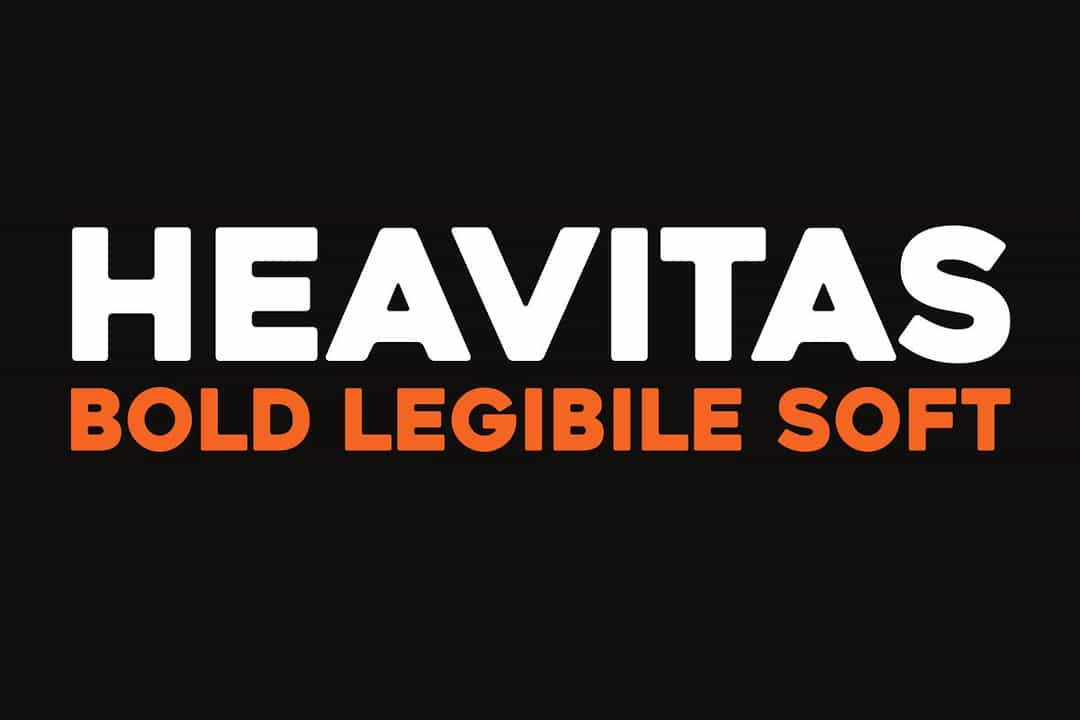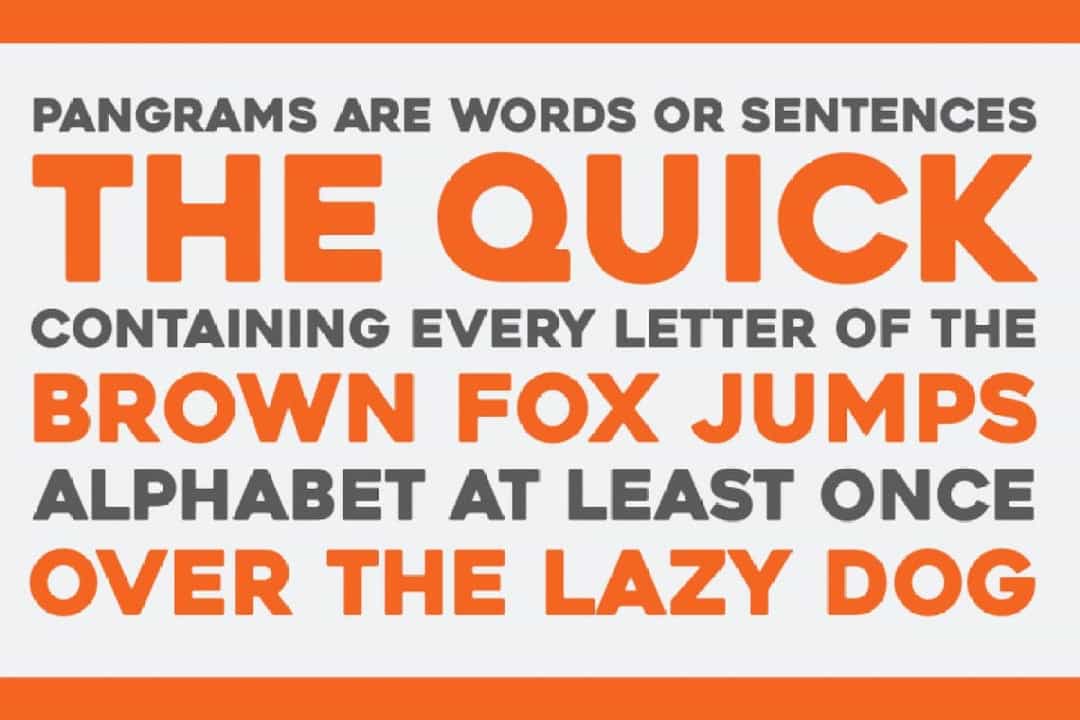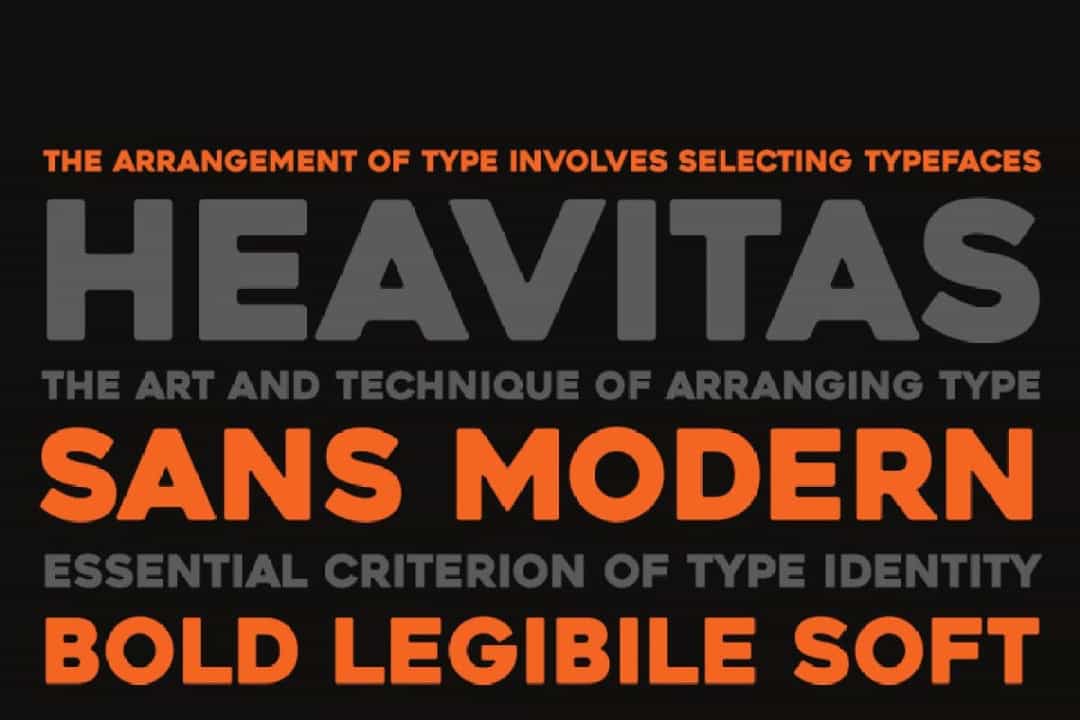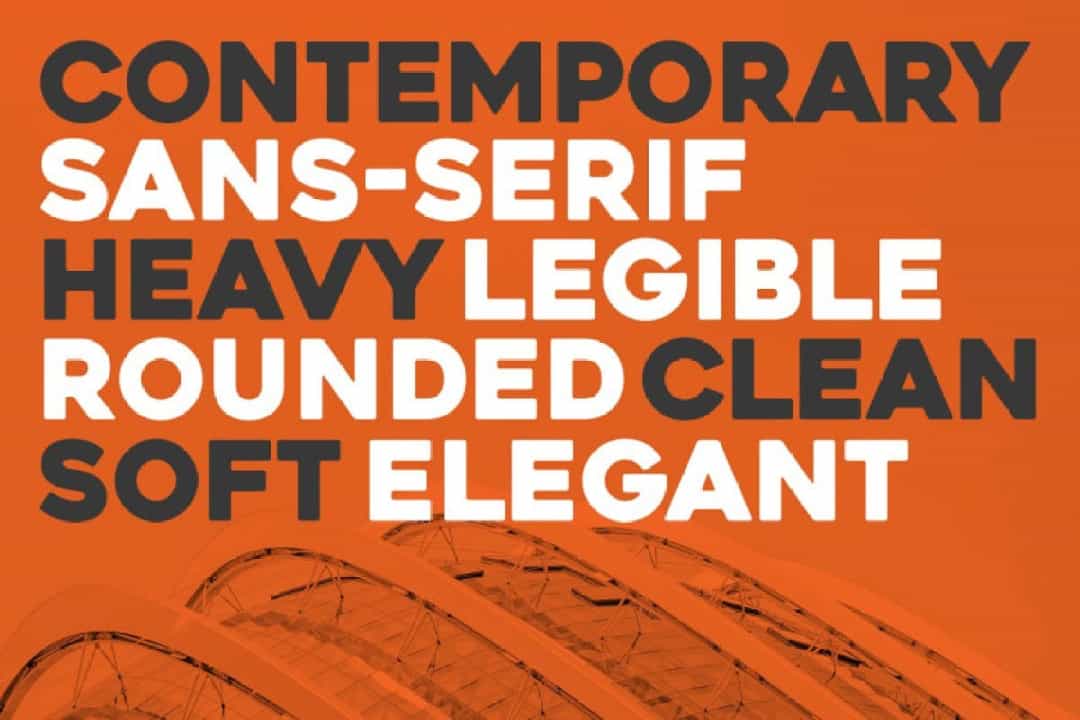
Heavitas is an updated version, Heavitas Neue which comes with a variety of weights, kerning that is better and different lower letter cases. Heavitas is an all-caps geometric sans serif typeface. Its modern and striking character with soft edges is appropriate for headlines headings, branding packaging, posters as well as logos, titles and titles.